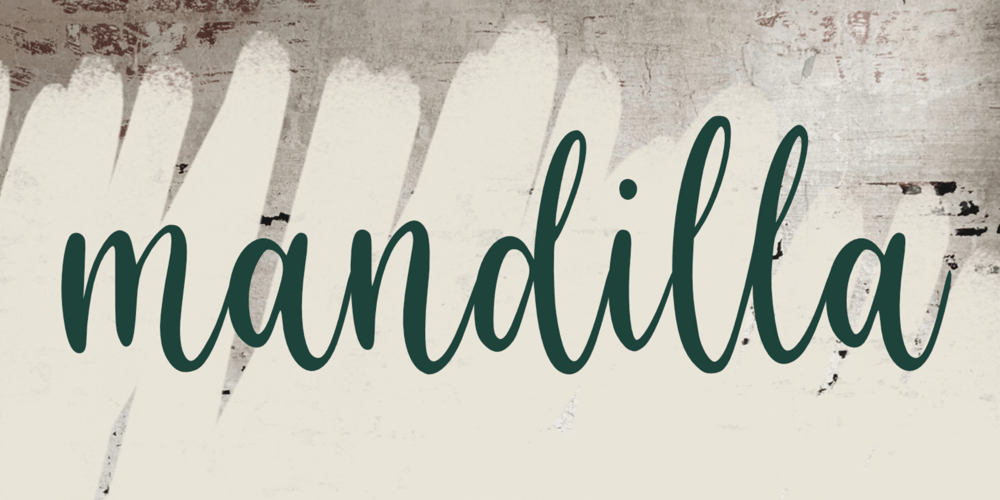
Mandilla
Mandilla font
Mandilla Font Family was designed by Irpan Maulana and published by Create Big Supply. Mandilla contains 1 styles and family package options. Introducing Mandilla, a captivating bold calligraphy font that showcases natural brush strokes and exudes elegance in every character. With its distinctive style and versatility, Mandilla is the perfect choice for a wide range of design projects, from logos and labels to magazines, books, packaging, and more.The bold and dynamic nature of Mandilla makes it ideal for creating impactful and eye-catching designs. Its smooth and fluid brush strokes lend a sense of authenticity and craftsmanship to your typography, adding a touch of sophistication to your visual compositions.Mandilla features a harmonious combination of uppercase and lowercase letters, offering flexibility and creativity in your design work. The font also includes numbers and punctuation, ensuring seamless integration of numerical and textual elements in your projects.With multilingual support, Mandilla allows you to communicate your message effectively in various languages, making it accessible to a global audience. The font incorporates ligatures and alternate characters, enabling you to add subtle variations and artistic flourishes to your text.Mandilla is designed with PUA (Private Use Area) Encoding, granting you easy access to special characters and alternate glyphs. This feature enhances your design process, empowering you to create unique and visually captivating compositions.